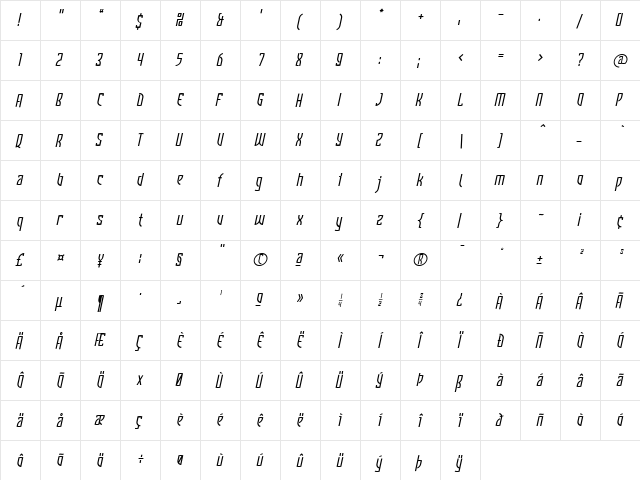
Komunique Medium Italic
Design Context for Komunique Typeface
Komunique is a composed and adaptable typeface that performs quietly and consistently across a wide range of design contexts. Its italic angle brings a sense of urgency and motion to the letterforms.
Pro Tip: Use Komunique for emphasis, pull quotes, and subheadings where its slanted energy can add rhythm to the layout.